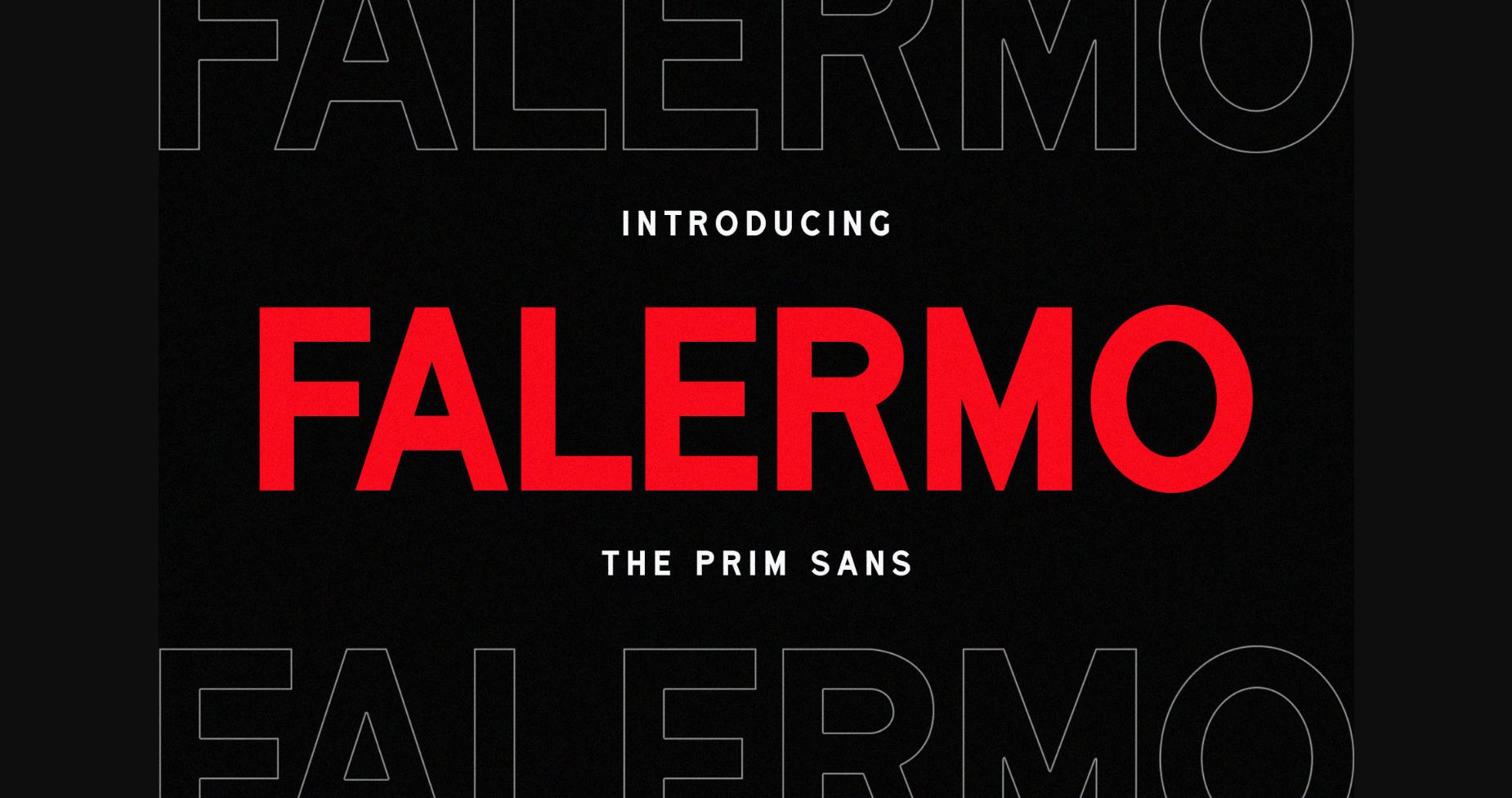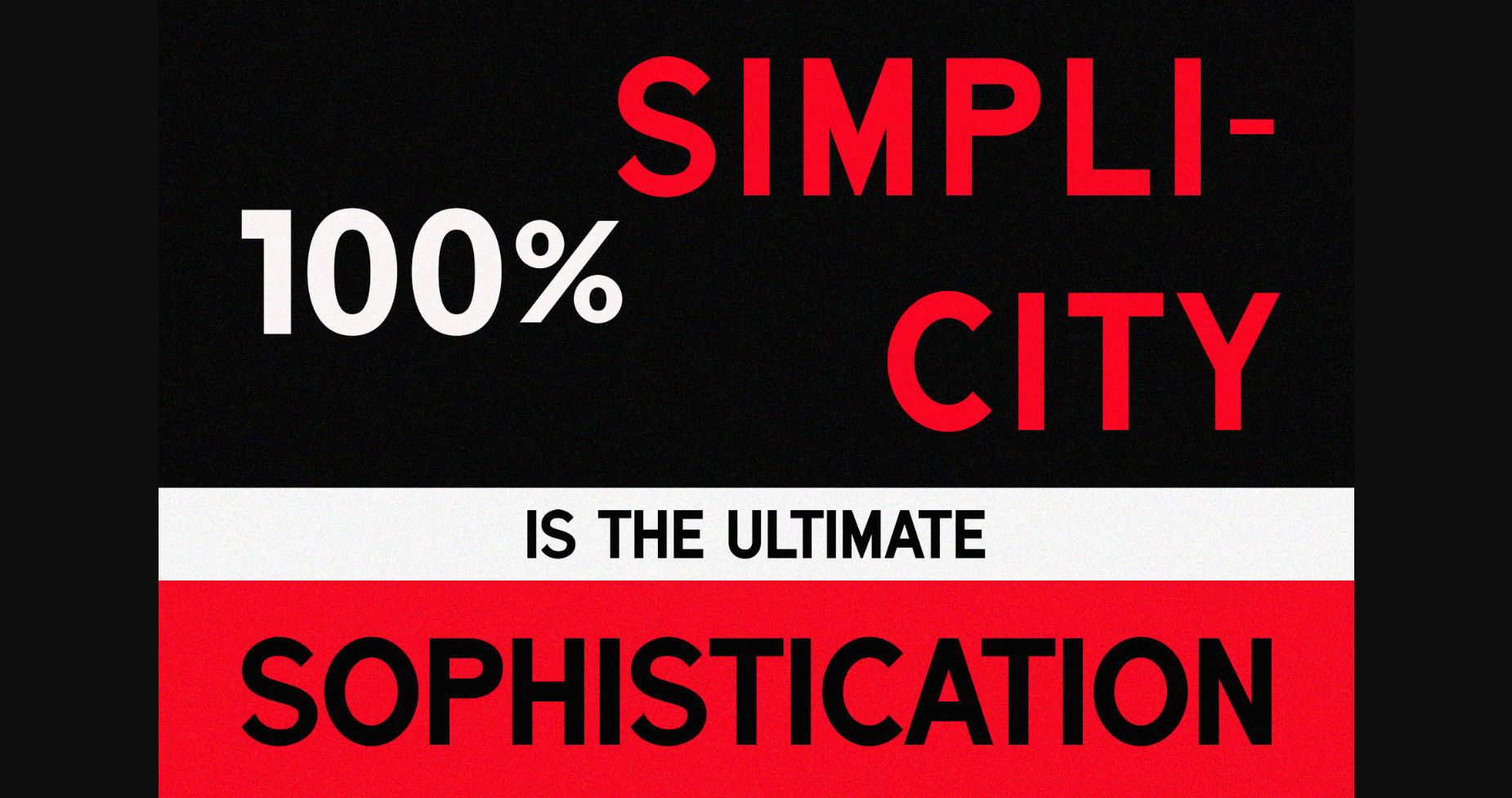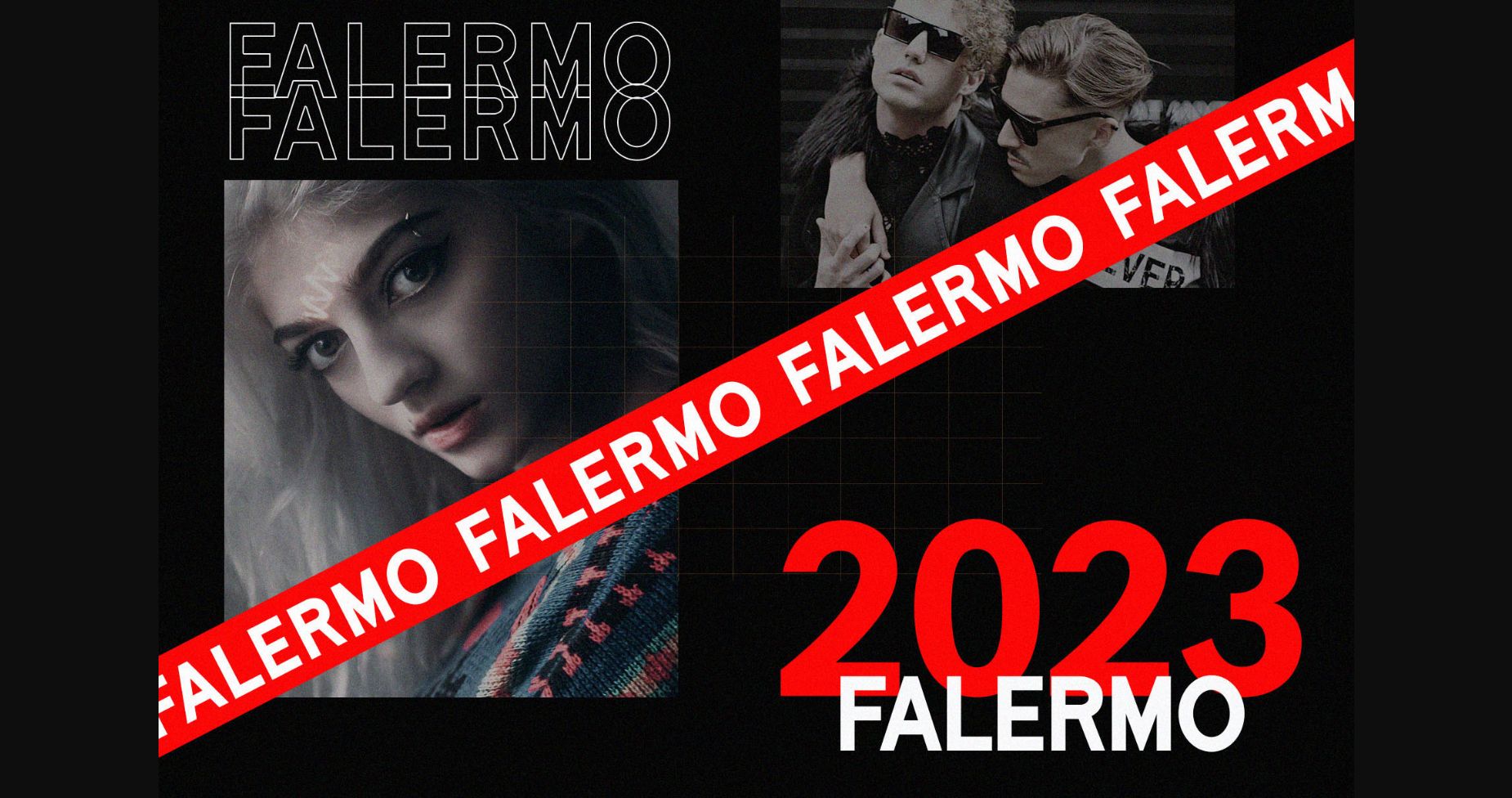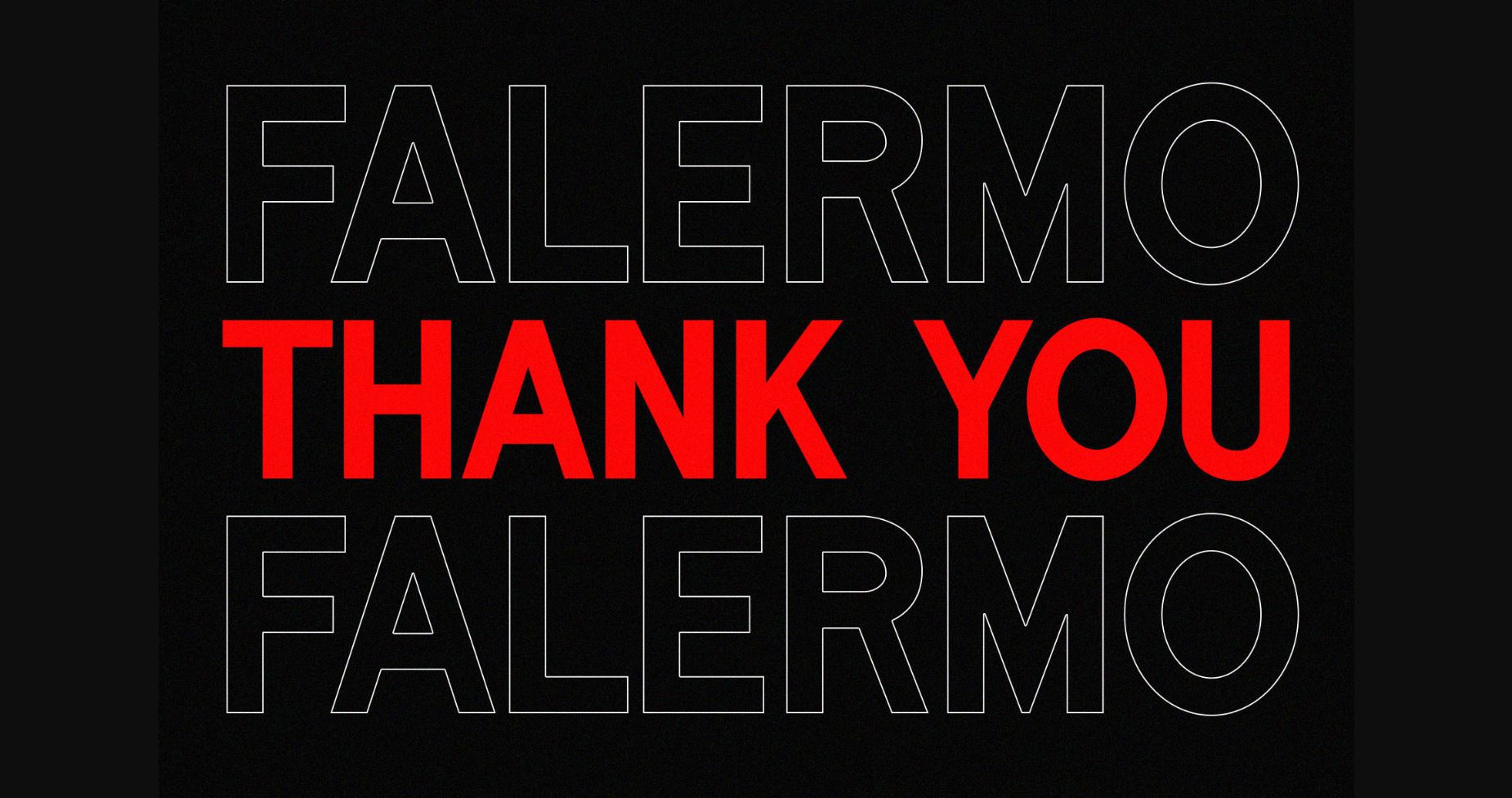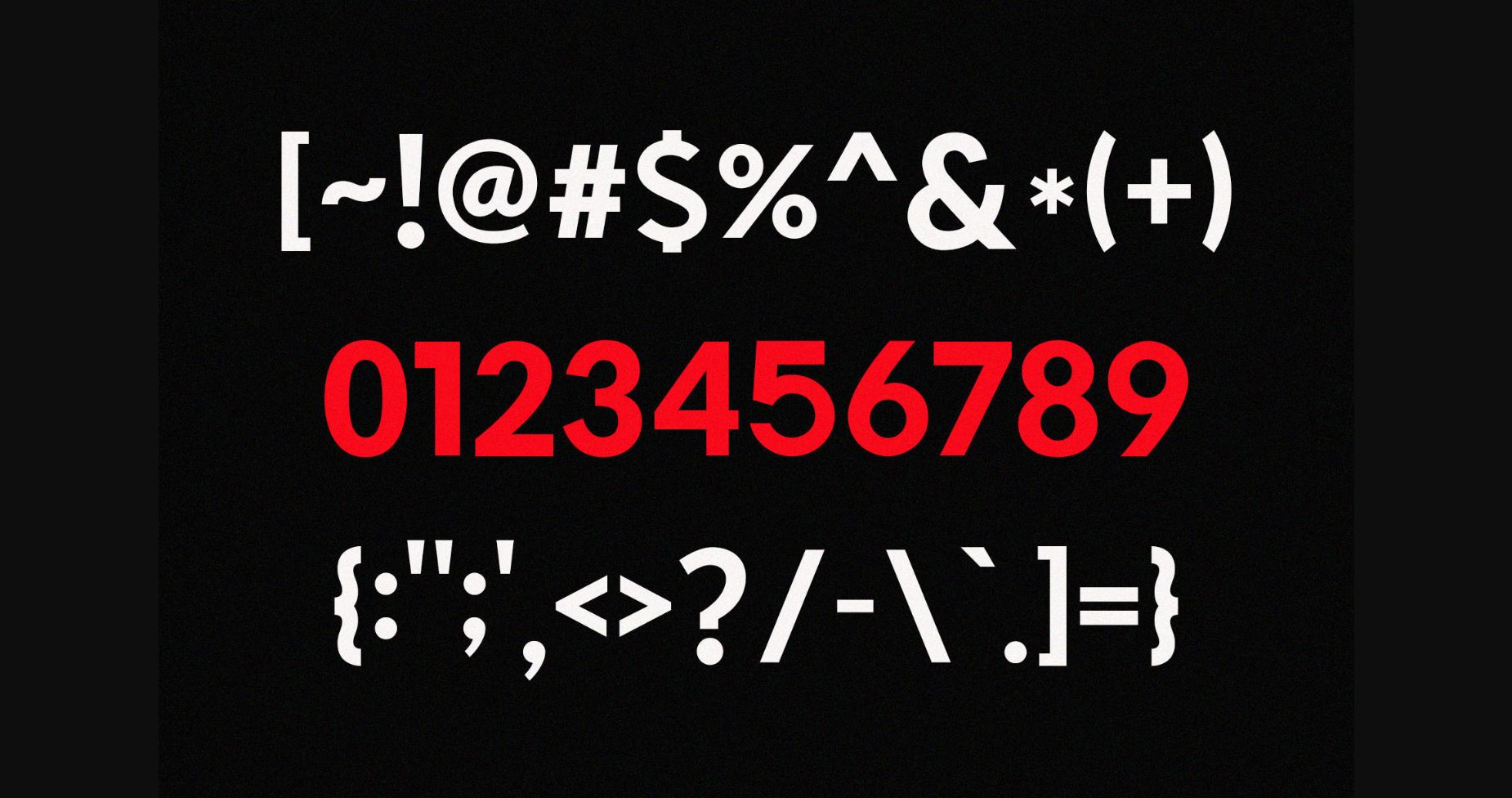
Falermo Font
About Falermo Font
Falermo is a sleek and contemporary sans-serif font that exudes modernity and sophistication. Its clean lines and sharp angles make it perfect for a range of design applications, from editorial layouts to branding and advertising. The font’s versatility lies in its ability to balance simplicity with elegance, making it a go-to choice for designers looking for a fresh, refined look.